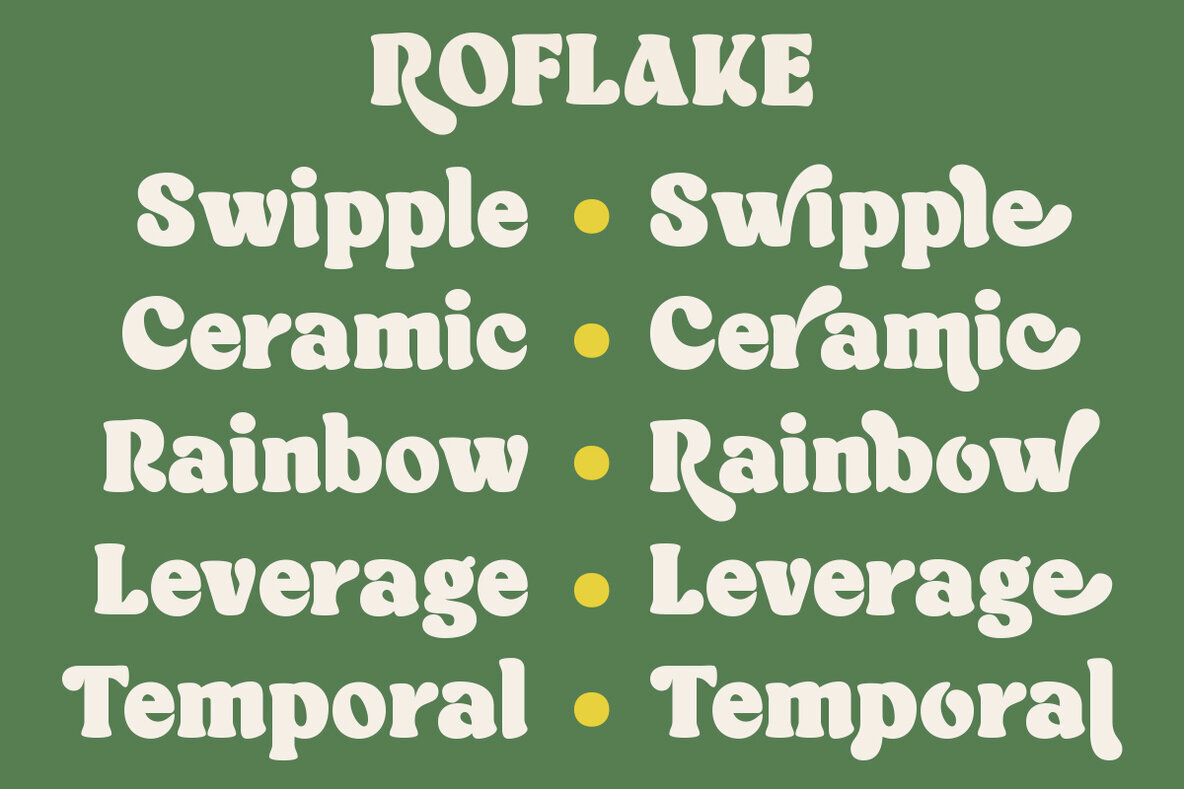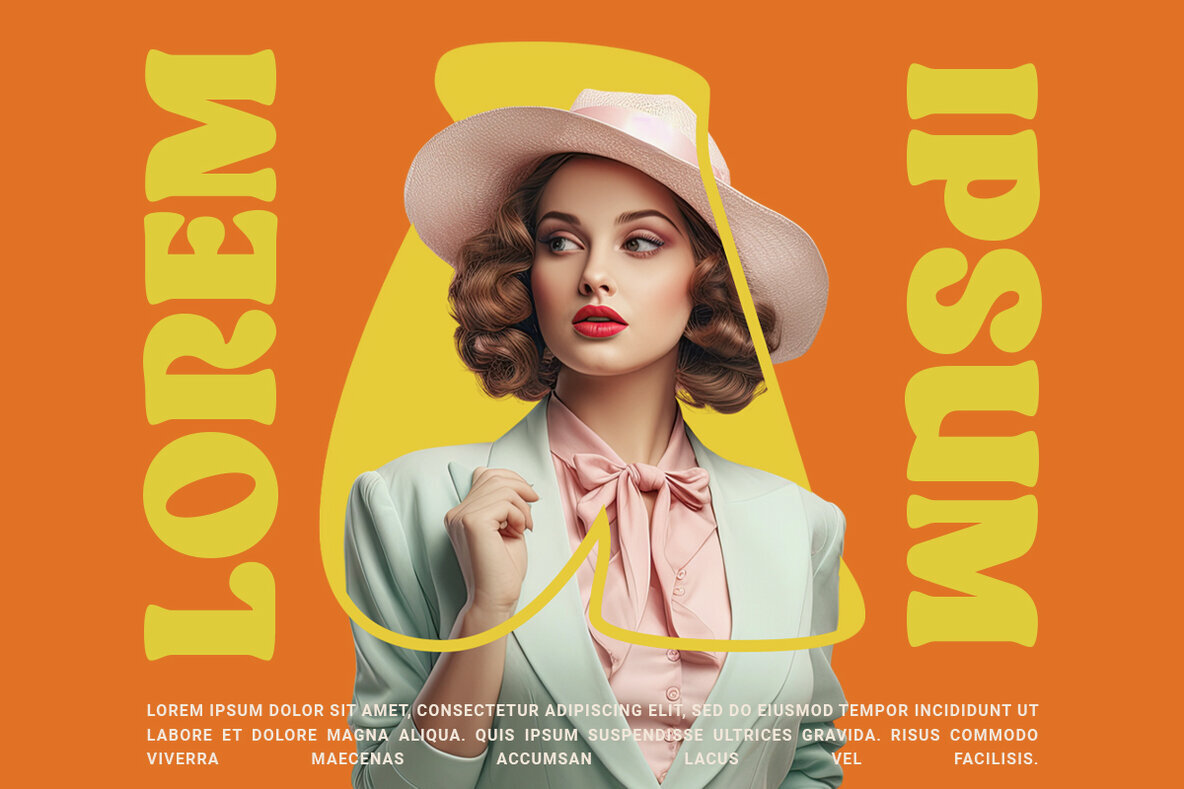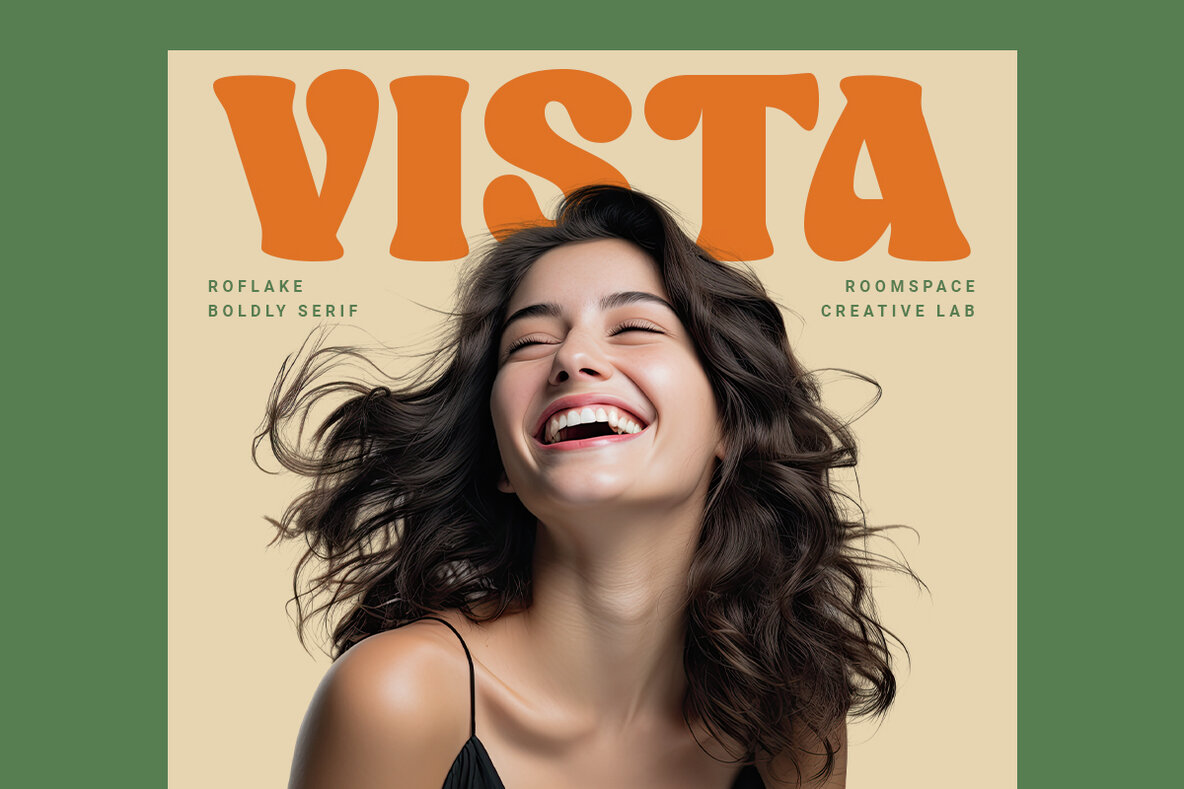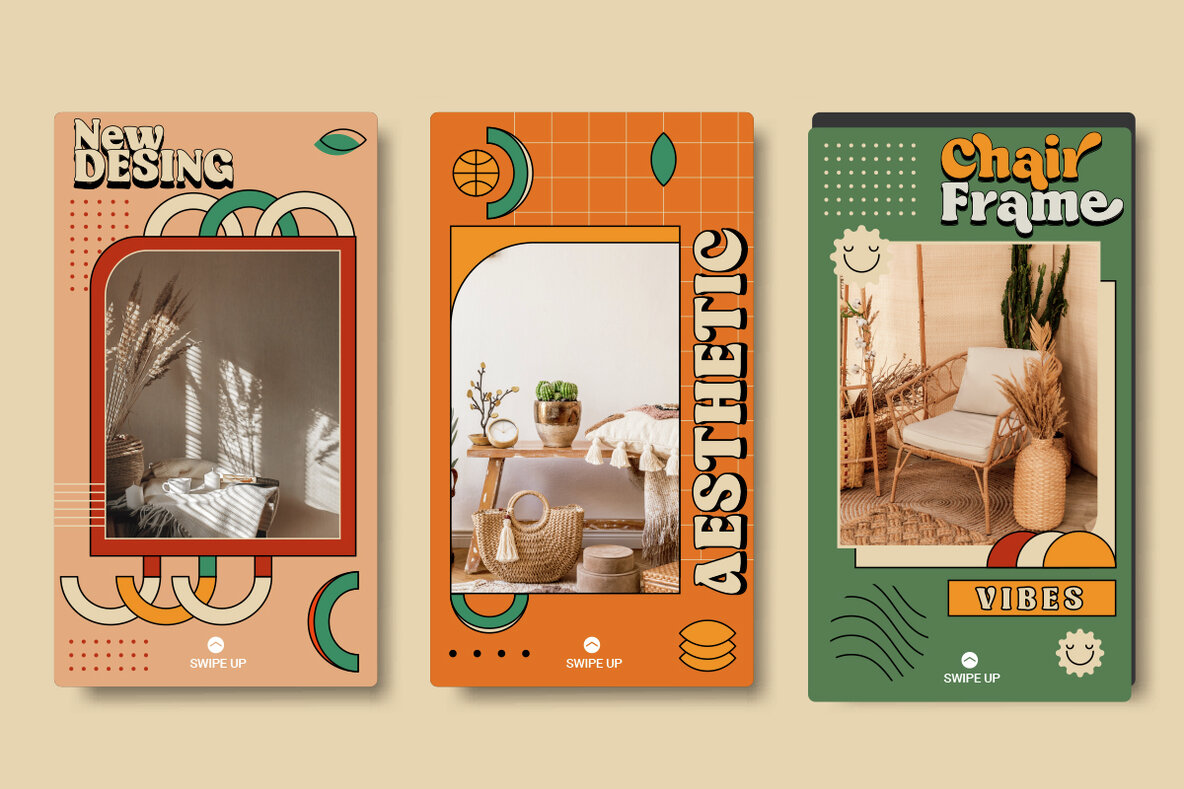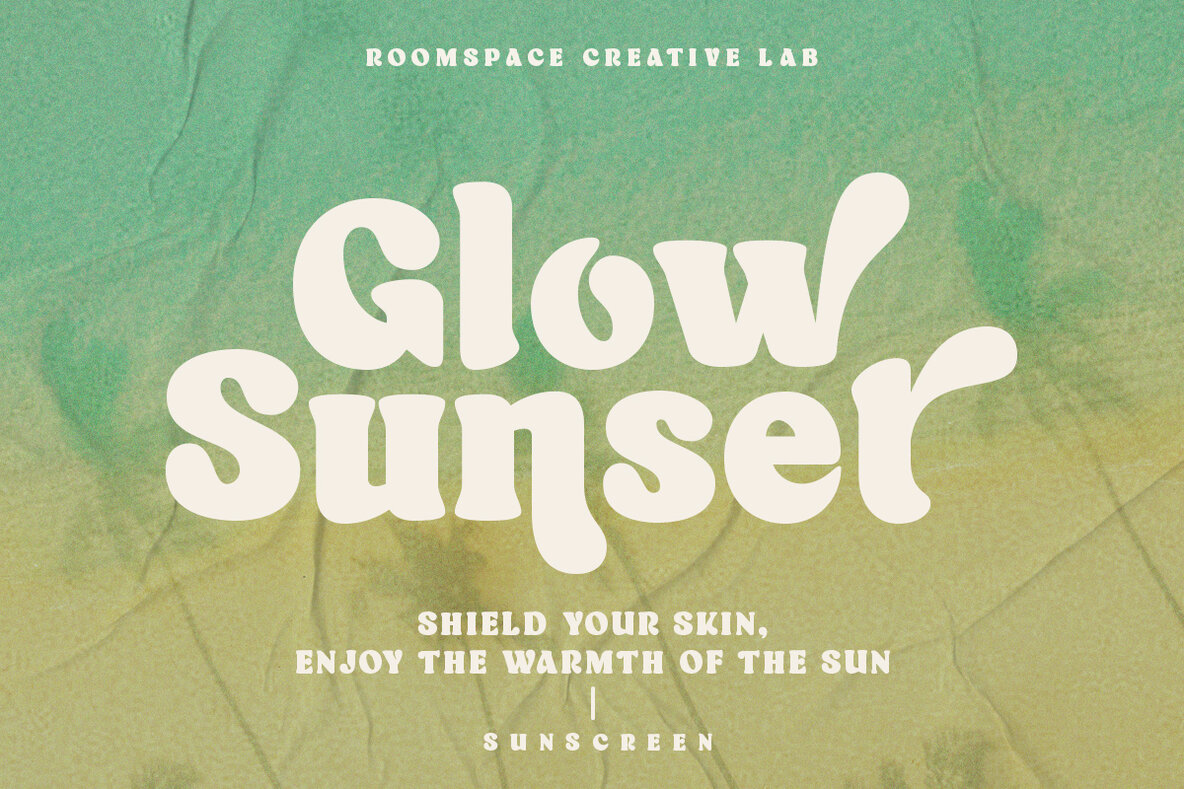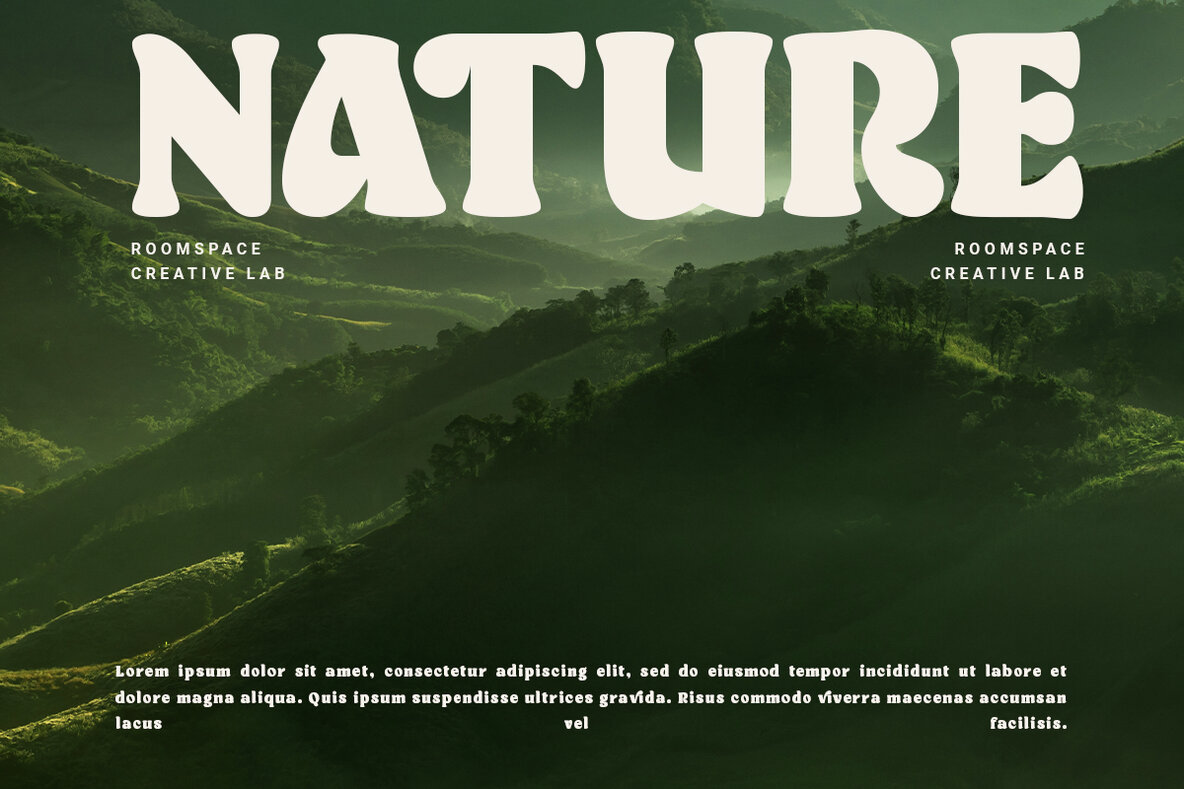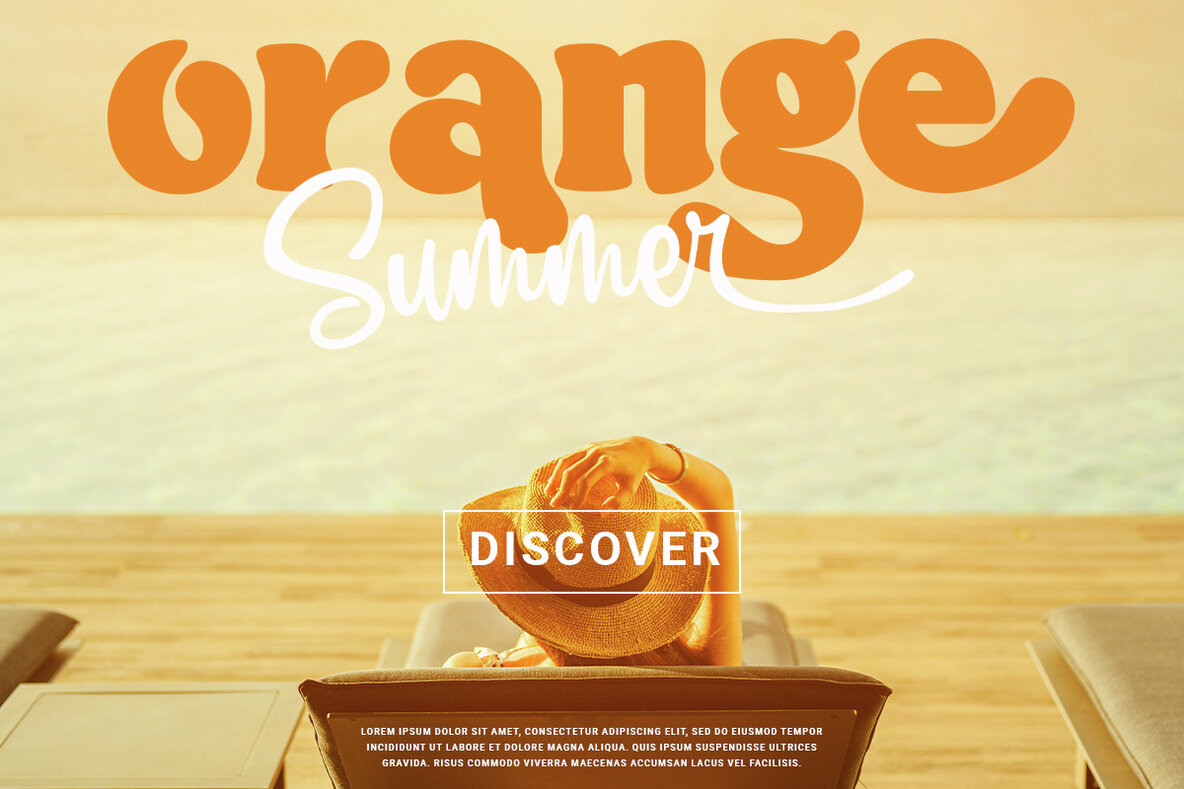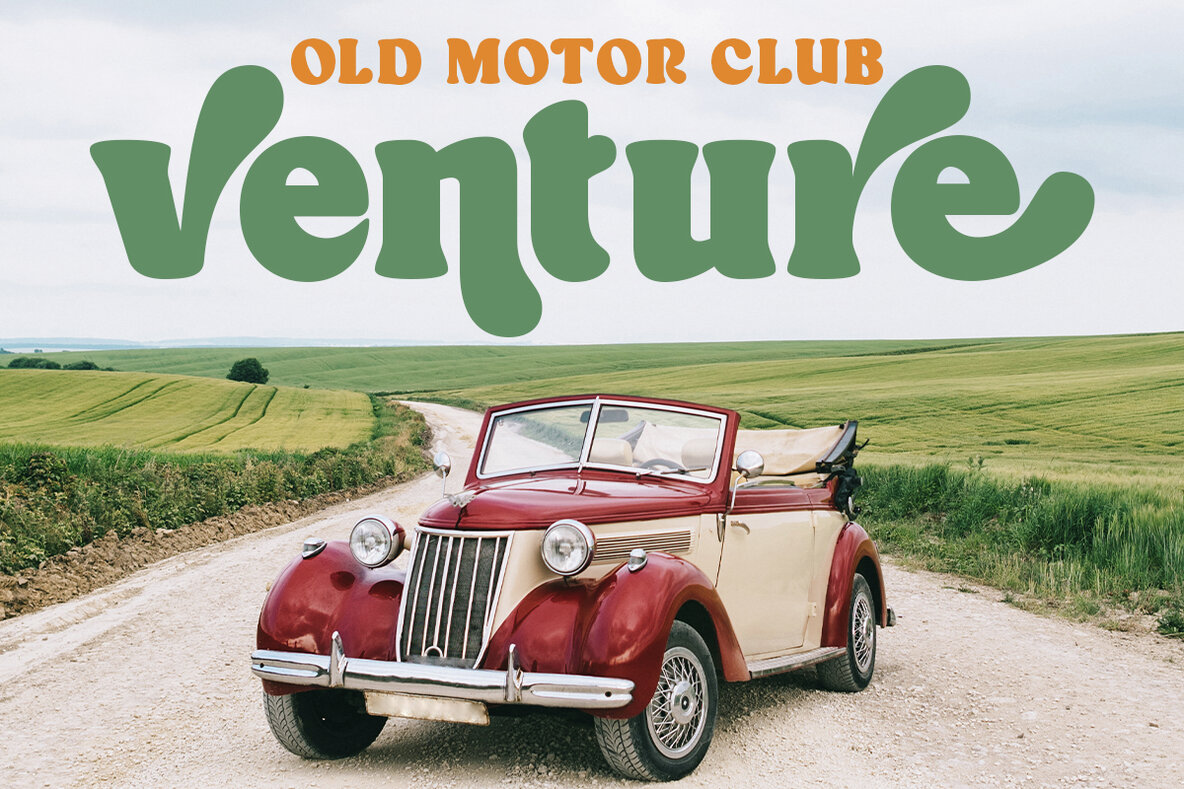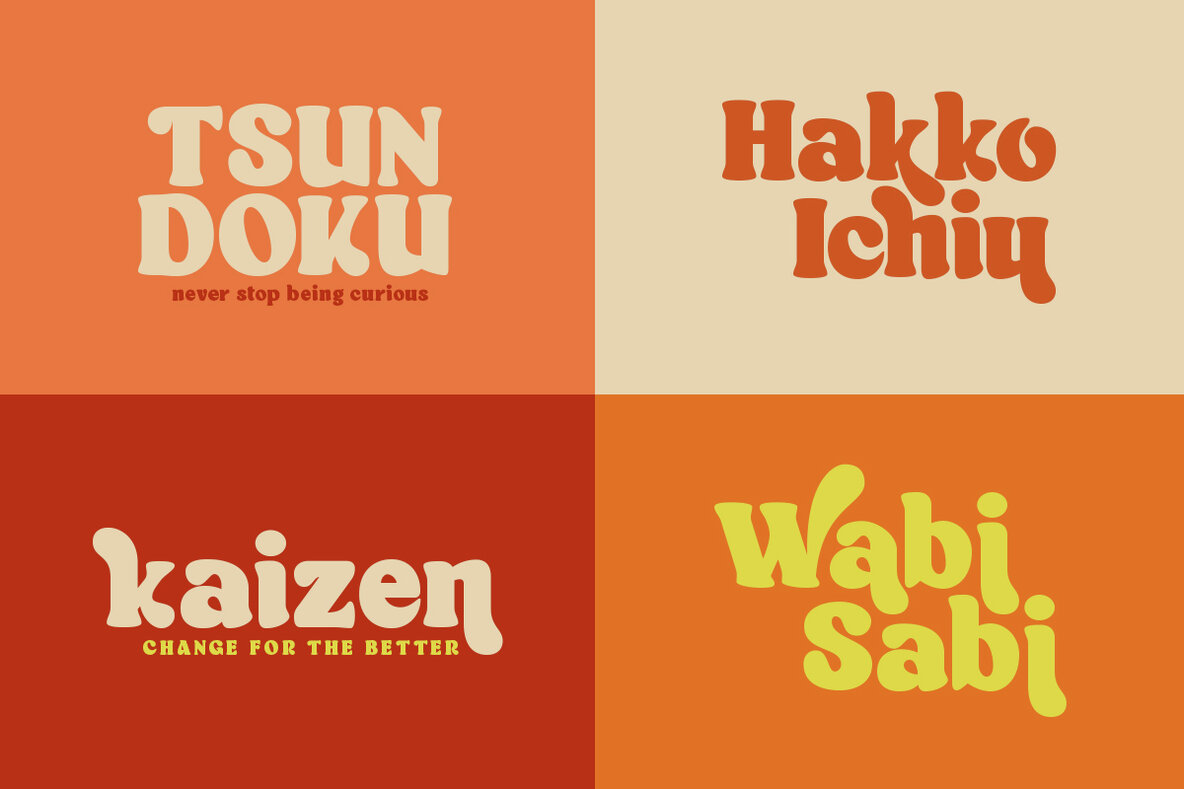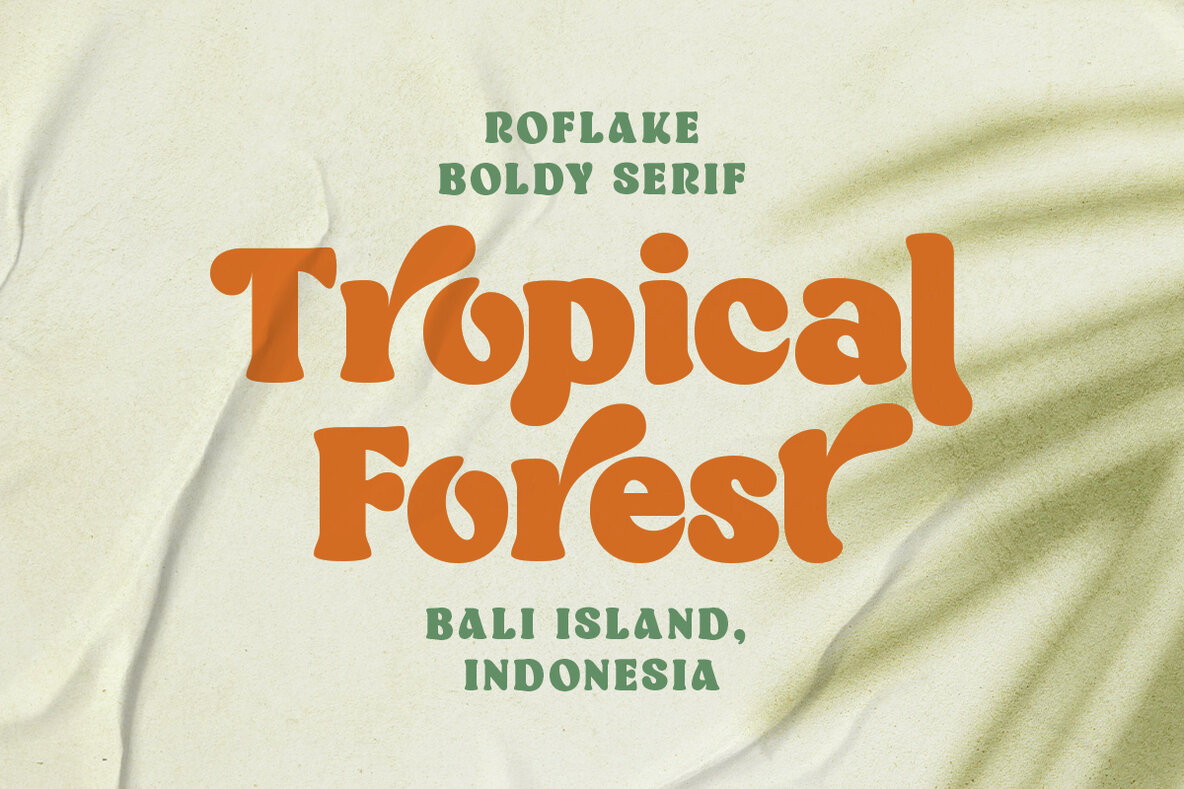
Roflake Font
Roflake combines the elegance of classic vintage serif style with contemporary rounded edges, providing a soft and inviting appearance. Its design is characterized by strong clarity, allowing it to deliver messages assertively while maintaining a gentle charm. Ideal for various design projects, the regular version of Roflake offers sturdiness and stability, signifying reliability and trustworthiness. Its clear and legible letters are enhanced by elegant vintage serif details.Roflake: Classic Vintage Serif with a Modern Touch